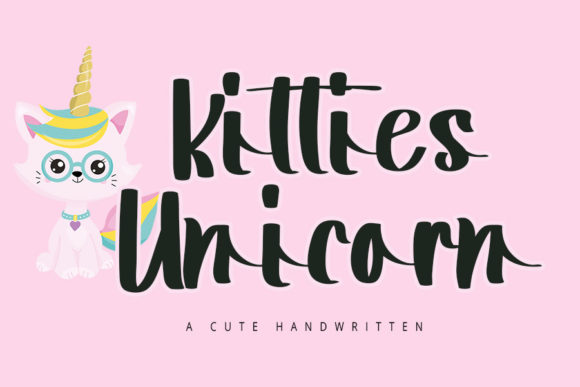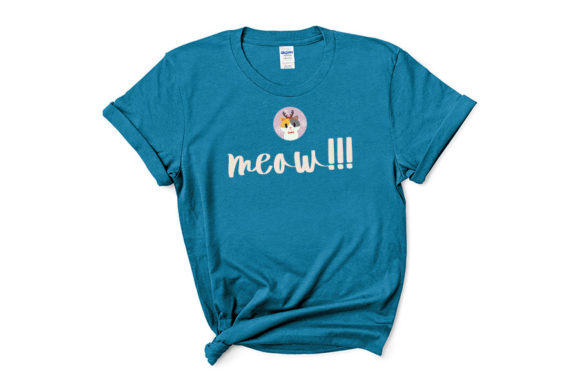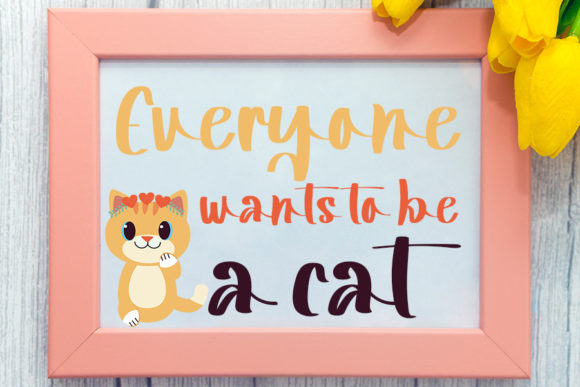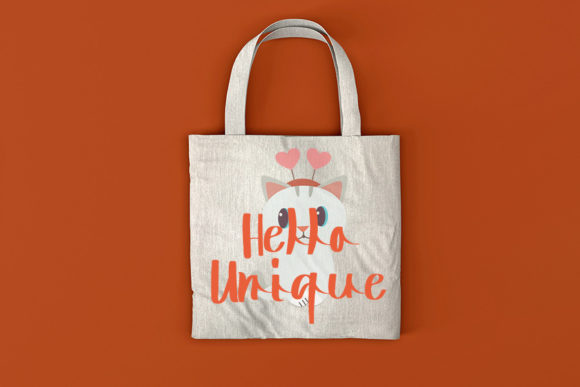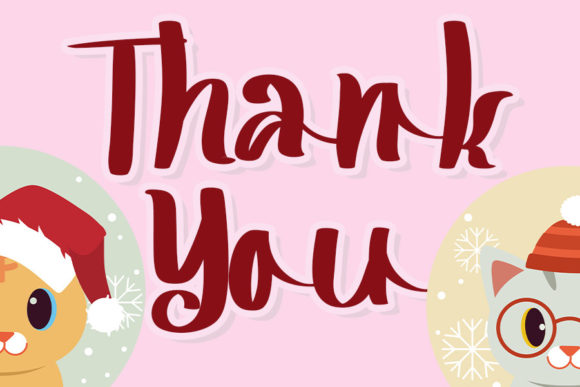
Kitties Unicorn Font
About Kitties Unicorn Font
Kitties Unicorn is a flowing handwritten font, described by an elegant touch, perfect for your favorite projects. Fall in love with its incredibly distinct and timeless style and use it to create spectacular designs!